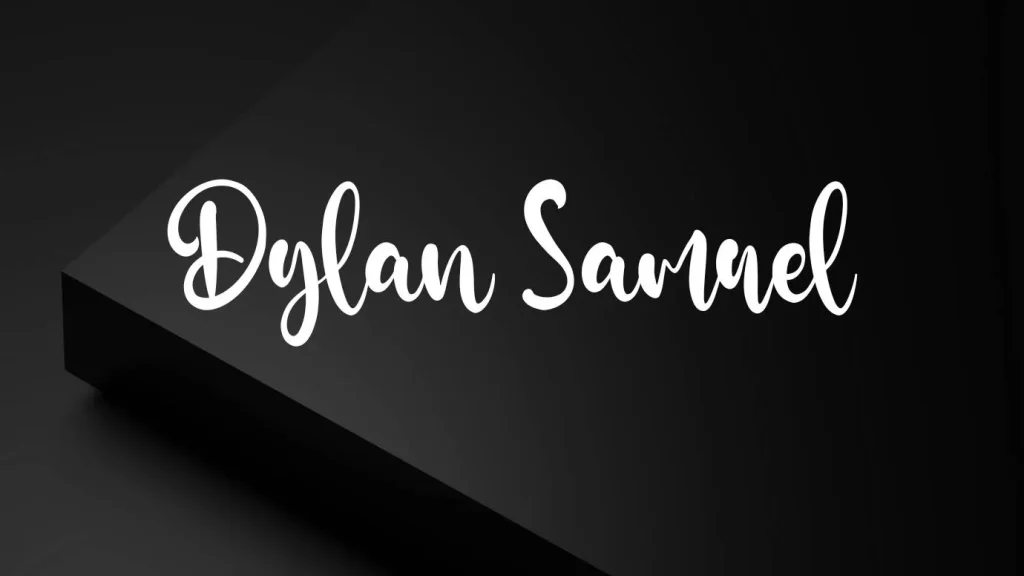
Dylan Samuel Font
About Dylan Samuel Font
An attractive texture design can be seen in this typeface. Dylan Samuel Font style can be found on magazine covers, book covers, and website designs. This typeface is creative and unique and would be perfect for a personal touch in any design project. Download Dylan Samuel Font
What kind of Dylan Samuel font is it?
The font has a simple, clean script design that makes it easy to read. With unique weights and styles available, this typeface can be used for a variety of projects.
Is a Dylan Samuel good typeface?
An attractive texture design can be seen in this typeface. This style can be found on magazine covers, book covers, and website designs. This typeface is creative and unique and would be perfect for a personal project.